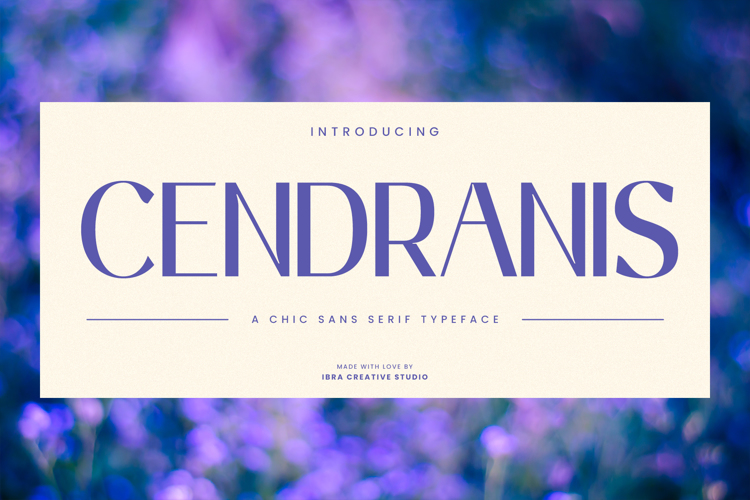
Cendranis Font
Cendranis, a chic sans-serif typeface, exudes modernity and sophistication with its clean lines and minimalist aesthetic. The simplicity of each letterform is meticulously balanced, creating a harmonious blend of elegance and contemporary style.